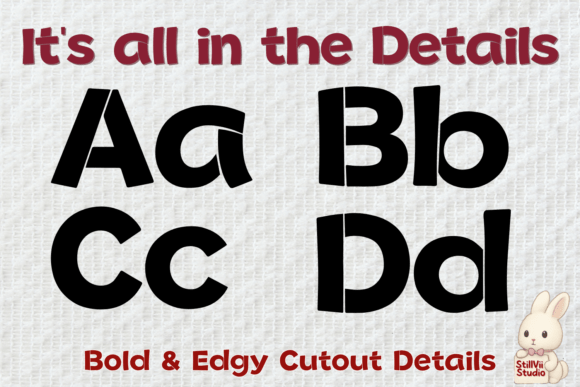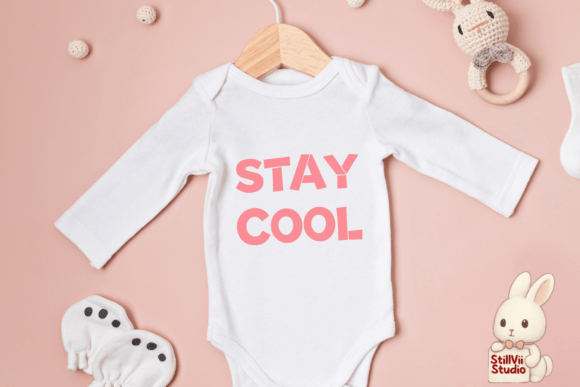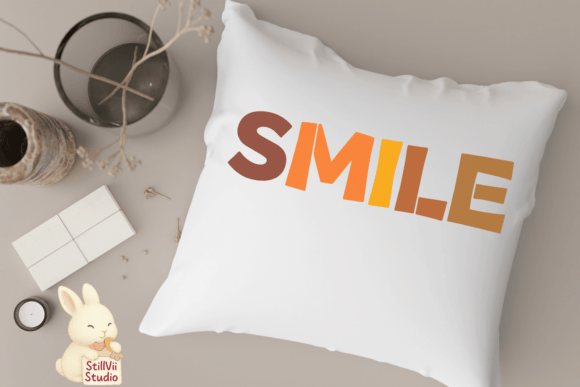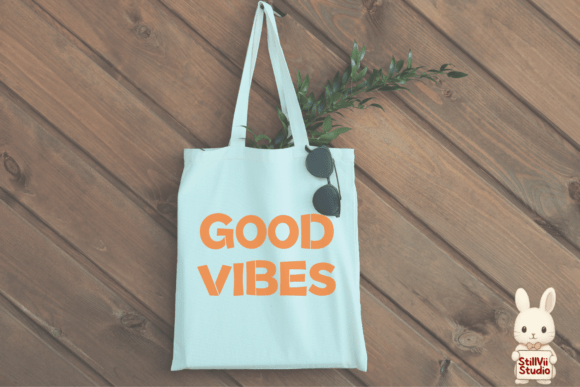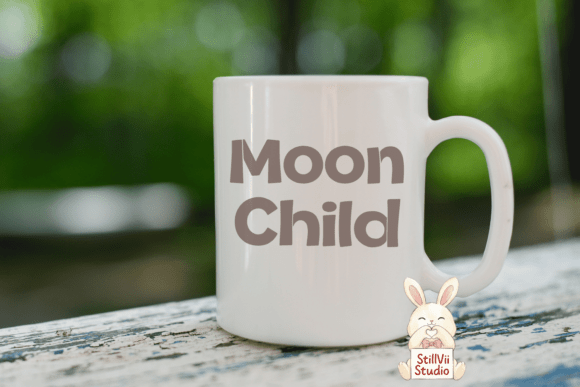
Introduction to Bouncy Block Font
Make your projects pop with the Bouncy Block Font.
A modern, chunky stencil alphabet designed for maximum impact This bold cutout typography is perfect for turning your digital designs into standout masterpieces.
Key Features of Bouncy Block Font
Why Choose Bouncy Block Font?
Bouncy Block Font offers exceptional quality and versatility, making it a valuable addition to your design toolkit. Whether you’re creating for personal projects or commercial use, Bouncy Block Font delivers professional results.